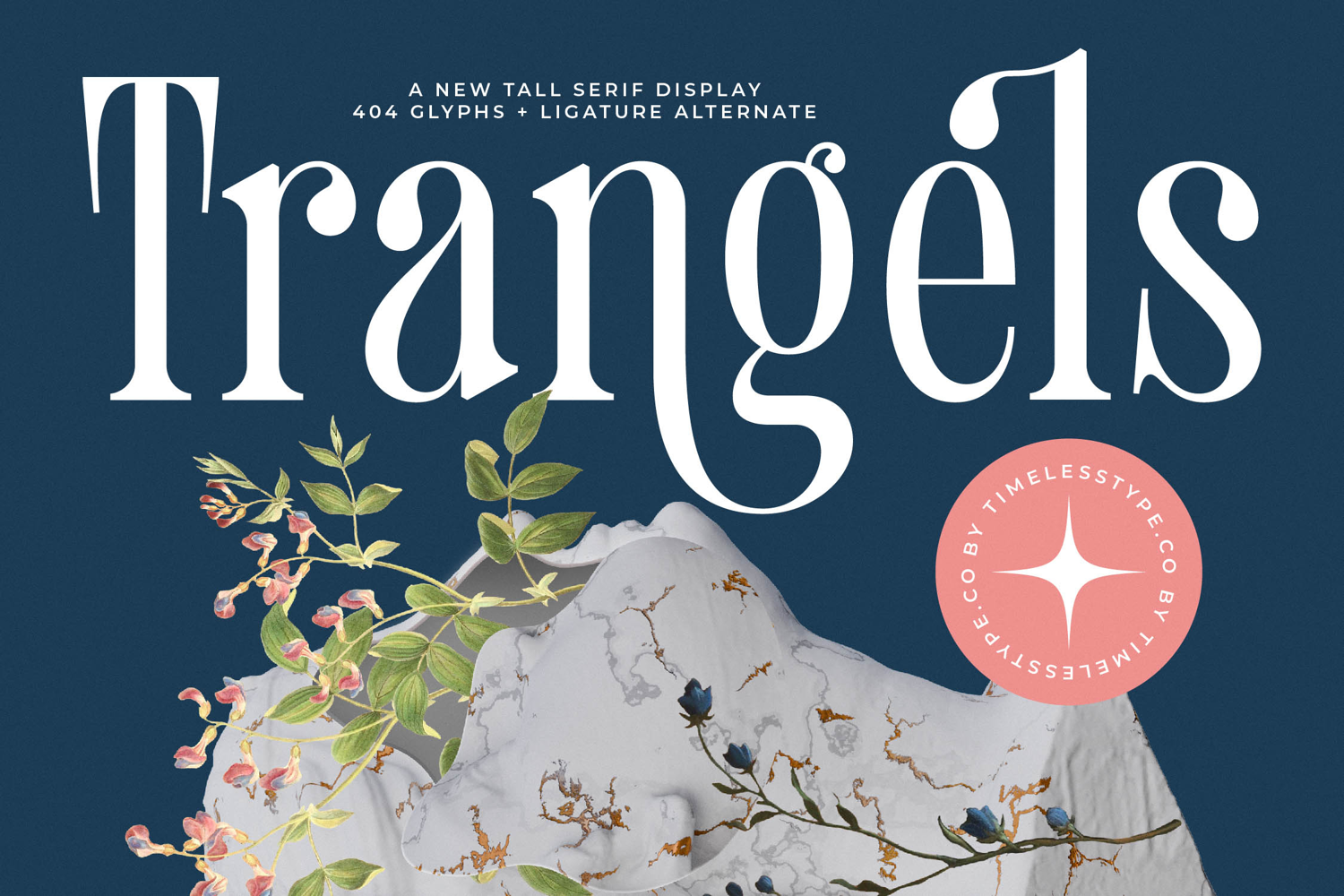
Trangels - New Tall Serif Display
Capture attention with the unparalleled elegance of Font Trangels - New Tall Serif Display Serif Display. This magnificent display serif typeface commands immediate attention with its striking balance of delicate serifs and bold, statuesque forms. Its elevated x-height and dramatic high-contrast strokes exude an air of refined sophistication, perfect for projects that demand a powerful yet graceful visual identity.
Unleash exceptional creative potential with a font meticulously crafted for impact. Font Trangels - New Tall Serif Display boasts an impressive collection of 404 glyphs and rich ligature alternates, offering unparalleled typographic flexibility. These thoughtful additions ensure your headlines, titles, and branding efforts achieve a truly unique and harmonious aesthetic, setting your design apart with distinctive flair.
Discover the ultimate tool for conveying prestige and allure. Font Trangels - New Tall Serif Display is an indispensable asset for luxury branding, high-end packaging, and editorial design. It is perfect for fashion magazines, exclusive invitations, captivating website headers, and distinctive logo design, imbuing every application with an undeniable sense of elegance and sophistication.
Expand your design reach effortlessly across cultures and languages. With its extensive multilingual support, Font Trangels - New Tall Serif Display adapts seamlessly across global markets, making it incredibly versatile for international projects. Choose this font to ensure your message resonates universally, delivering a consistent and impactful visual experience that speaks volumes about quality and timeless appeal.